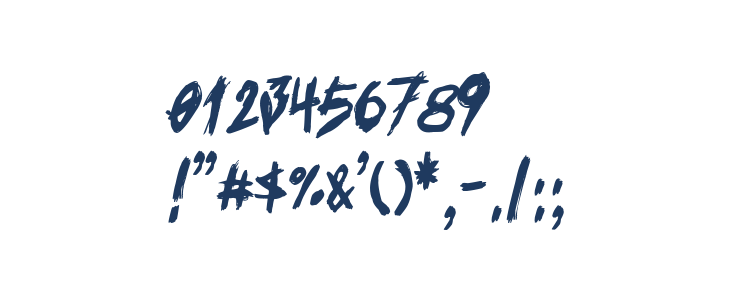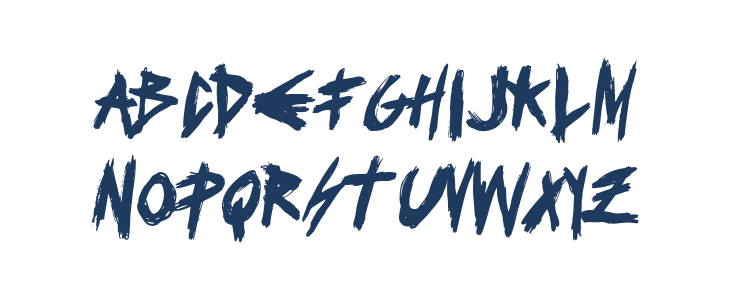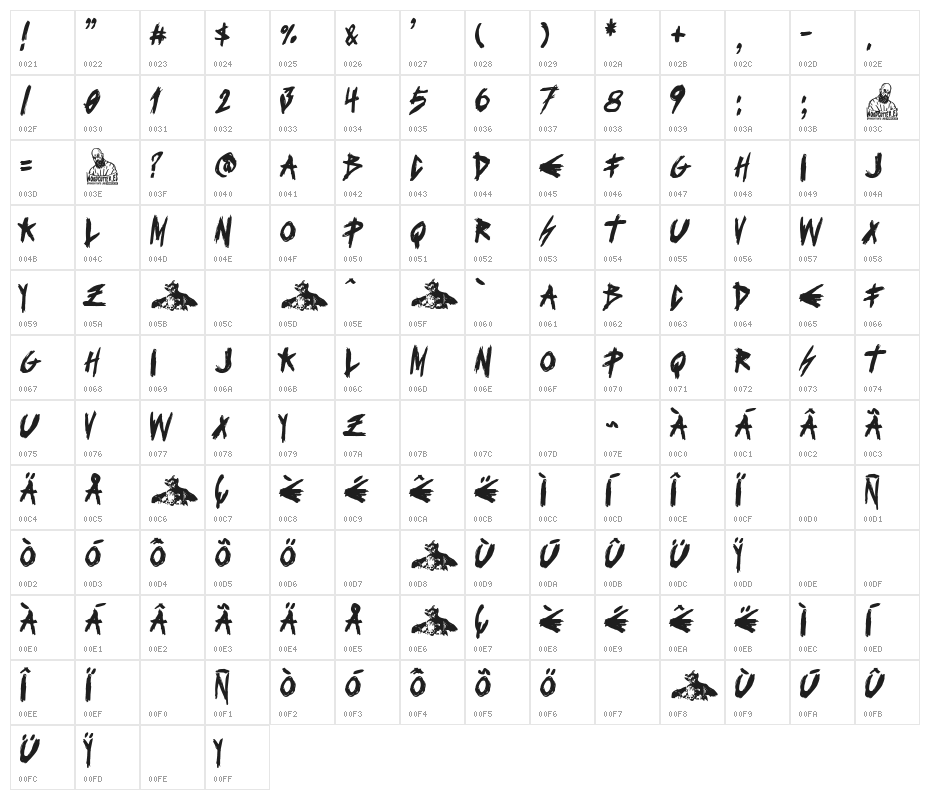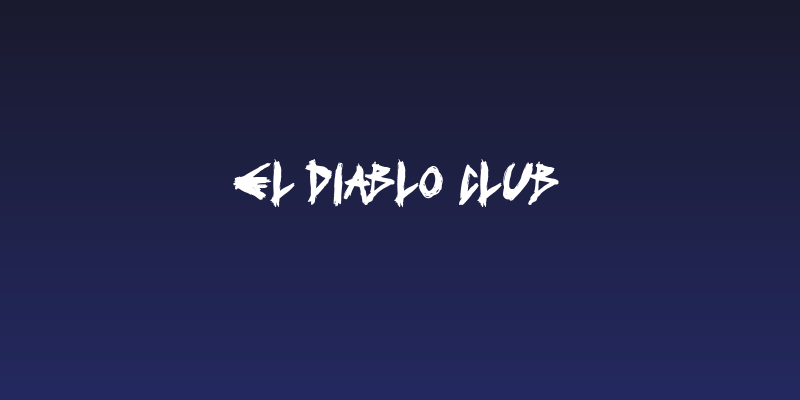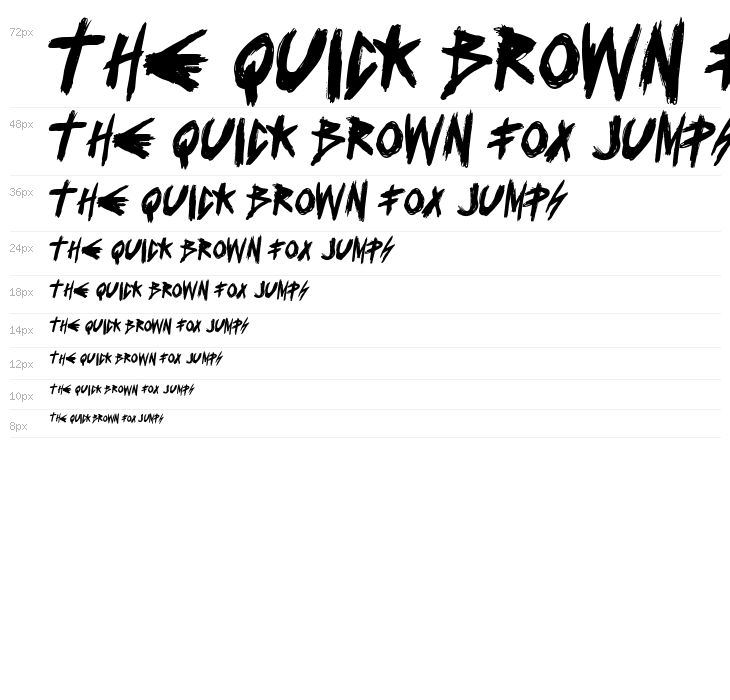
El Diablo Club Font
El Diablo Club Description
A bold, expressive handwritten font with rough, brush-like strokes and high visual energy. The characters are irregular and dynamic, with jagged edges and varying thickness, creating a raw and rebellious appearance.
| Overall Style | Decorative, Grunge, Edgy |
| Use Case | Headlines, Logos, Posters, Event Flyers |
| Proposed Projects | Music posters, horror or thriller movie titles, extreme sports branding, edgy apparel, graffiti-inspired designs. |